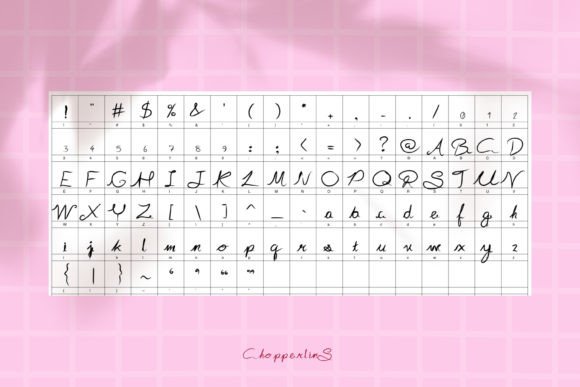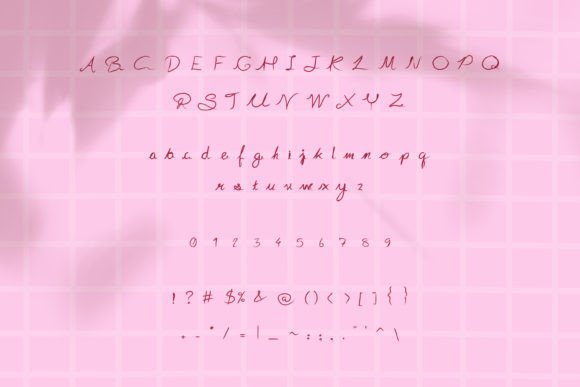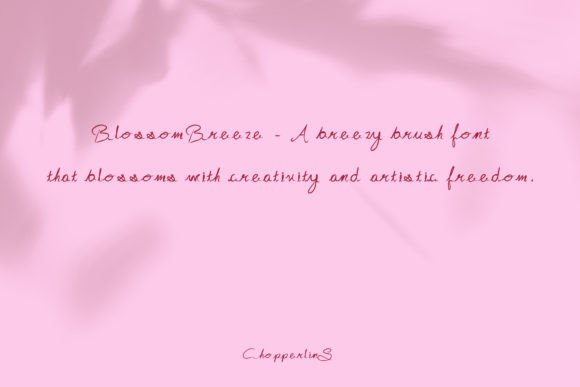
Introduction to Blossombreeze Font
As a designer, there’s nothing quite like the thrill of discovering a new font that perfectly captures the essence of your creative vision. For me, that moment came when I stumbled upon the Blossombreeze Font, a refreshing and elegant typeface that breathed new life into my latest project. Its beautifully designed letterforms transported me to a serene landscape, where the gentle breeze carried the whispers of a thousand possibilities.
With its delicate touch and airy quality, the Blossombreeze Font is an invaluable resource for designers seeking to add a touch of sophistication to their work. Whether you’re crafting an elegant invitation or developing a modern brand identity, this font effortlessly conveys a balance of style and readability, making it a must-have in your design arsenal. And the best part? You can download it for free, giving you the freedom to infuse your creative project with a hint of tranquil elegance.
- High-quality design resource ideal for creative projects requiring a delicate touch, such as invitations, greeting cards, or wedding decorations.
- Designed with a delicate, whimsical style, the Blossombreeze Font is perfect for adding a touch of elegance and sophistication to any creative project.
Honest Review: Blossombreeze Font
What works well is the font’s ability to add a touch of whimsy to any creative project. The delicate, hand-drawn style of the Blossombreeze Font is perfect for branding, invitations, or any other design where a bit of elegance is required.
The font’s high quality is evident in its crisp, clean lines and subtle texture. It’s perfect for use on a transparent background, allowing the design to shine.
Some limitations of the Blossombreeze Font include its limited character set and lack of bold weights. This might make it less suitable for use in headlines or large blocks of text.
Overall, I’m impressed with the Blossombreeze Font. It’s a great resource for designers looking to add a bit of personality to their projects.
- ✨ Whimsical, hand-drawn style
- ✨ High-quality, crisp lines and subtle texture
- ✨ Perfect for use on transparent backgrounds
- ⚠️ Limited character set
- ⚠️ Lack of bold weights
For optimal results, use the Blossombreeze Font on a transparent background to create a clean and elegant design. Experiment with different font sizes, colors, and styles to find the perfect combination for your creative project.
The Blossombreeze Font is ideal for wedding invitations, greeting cards, and other creative projects that require a touch of elegance and sophistication. Its high-quality design and versatility make it a popular choice among designers and artists.